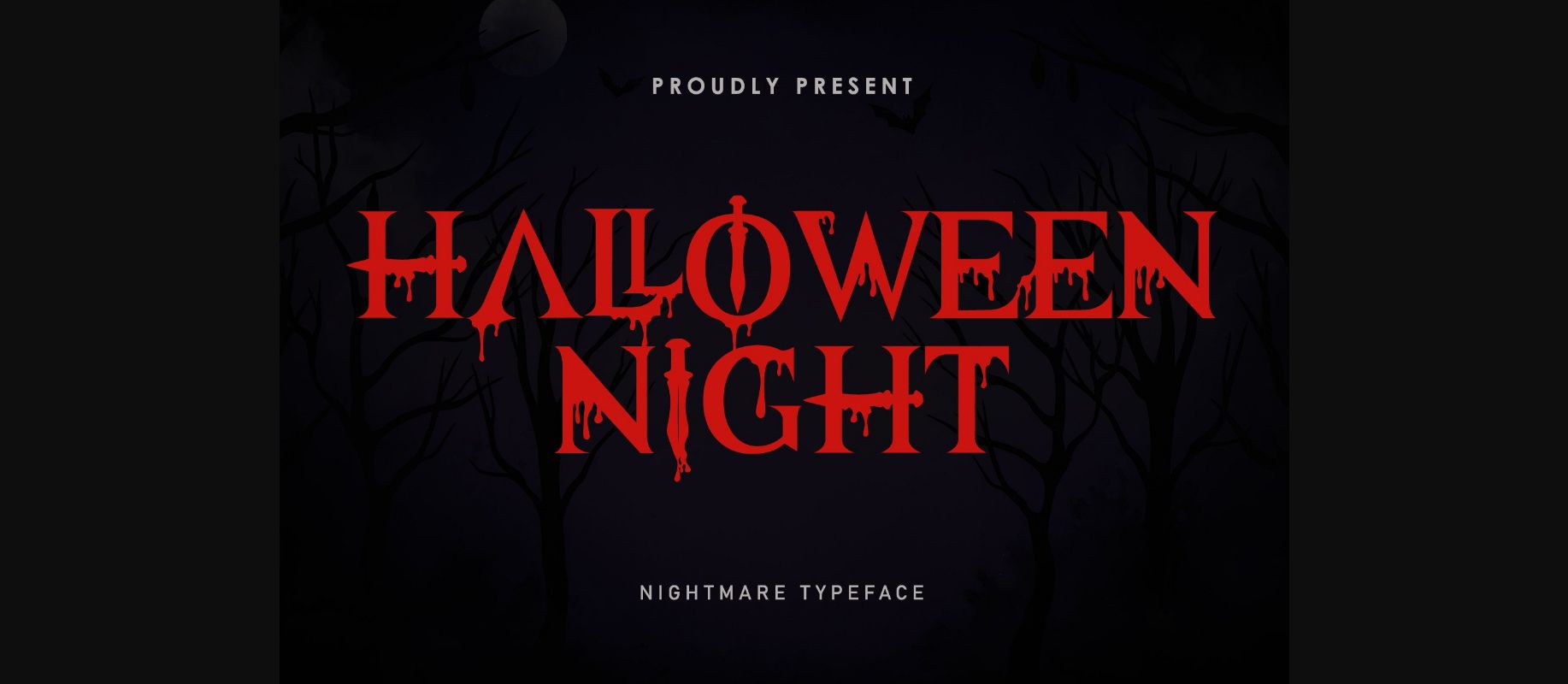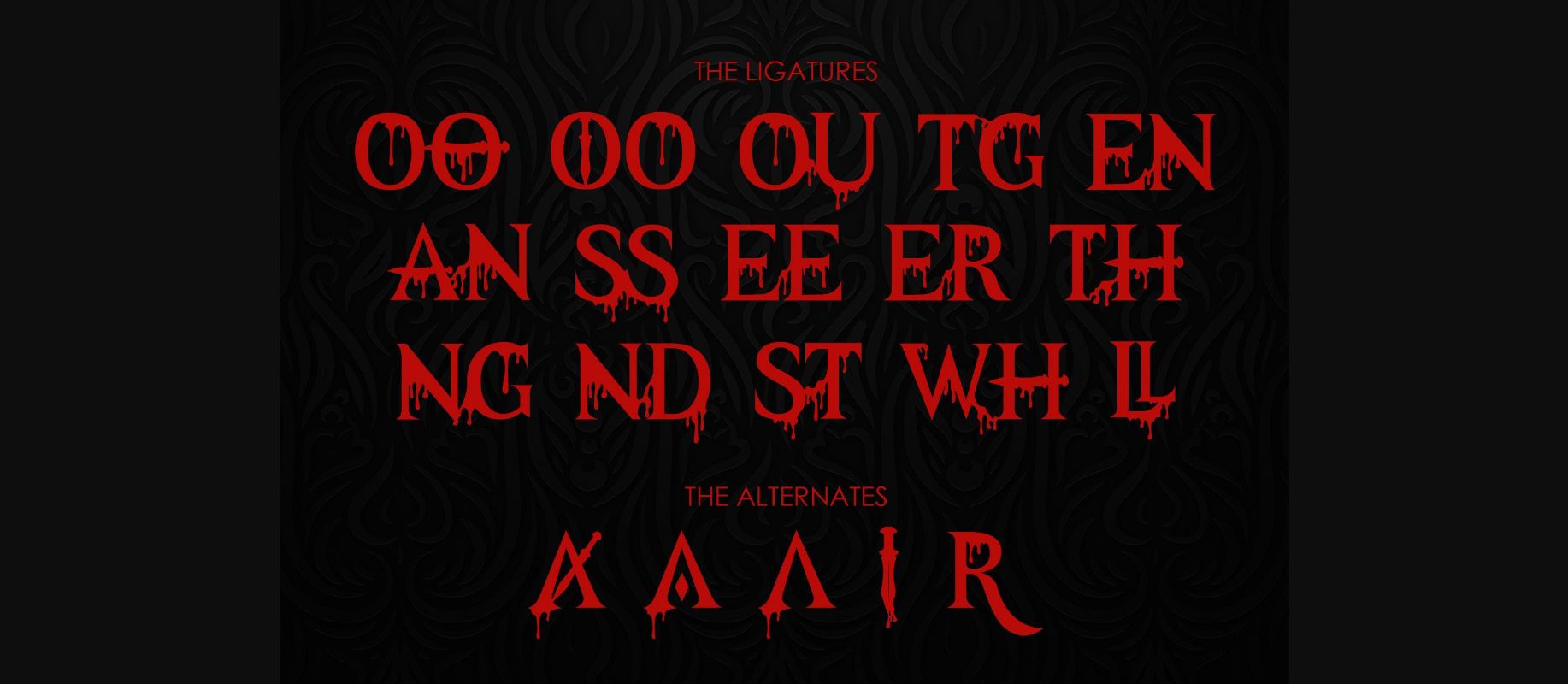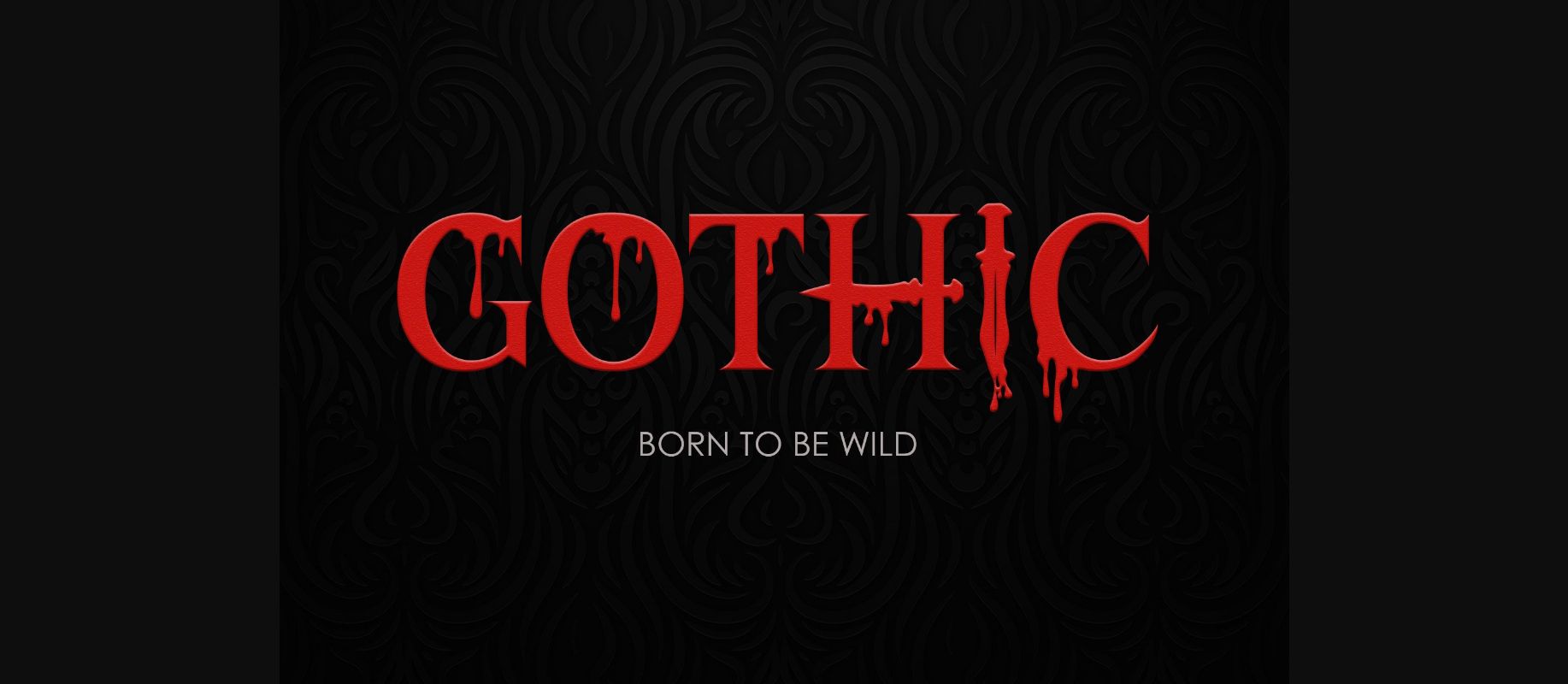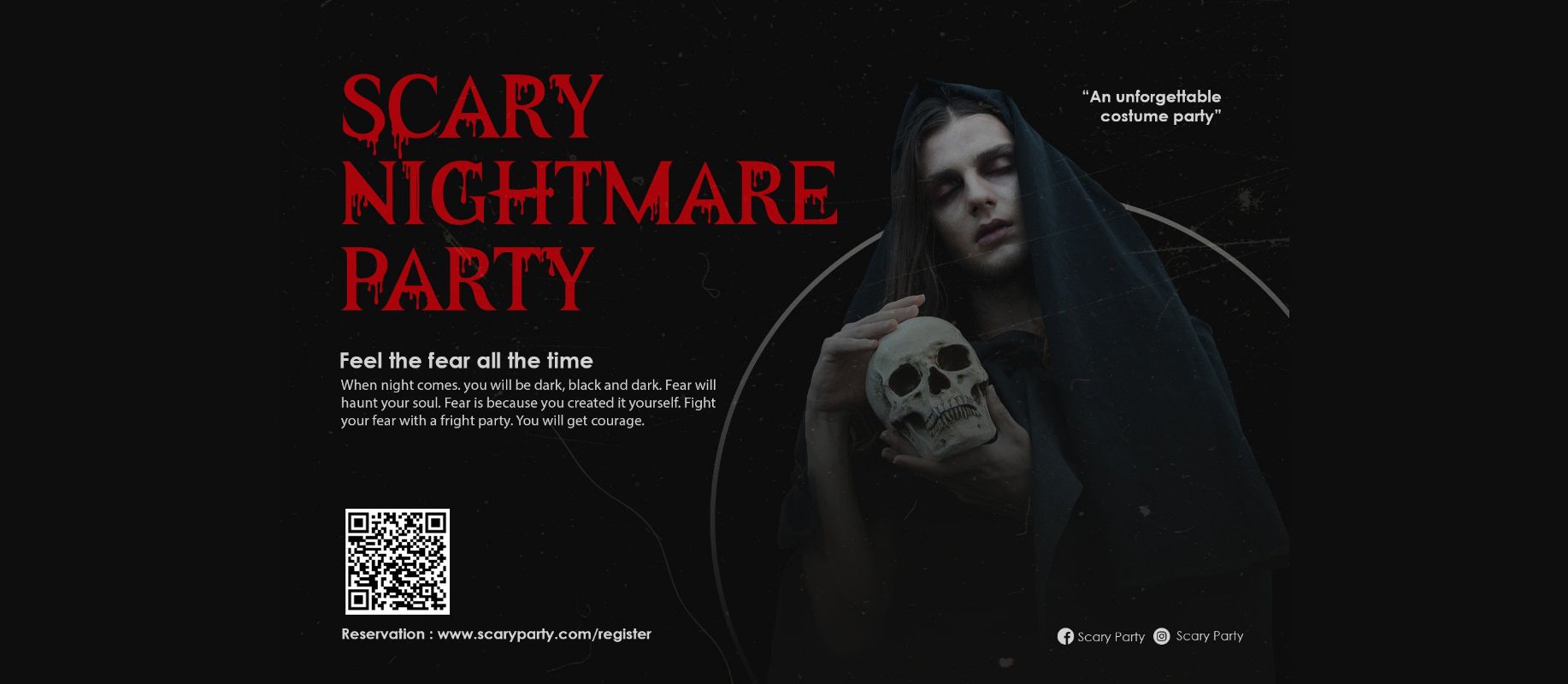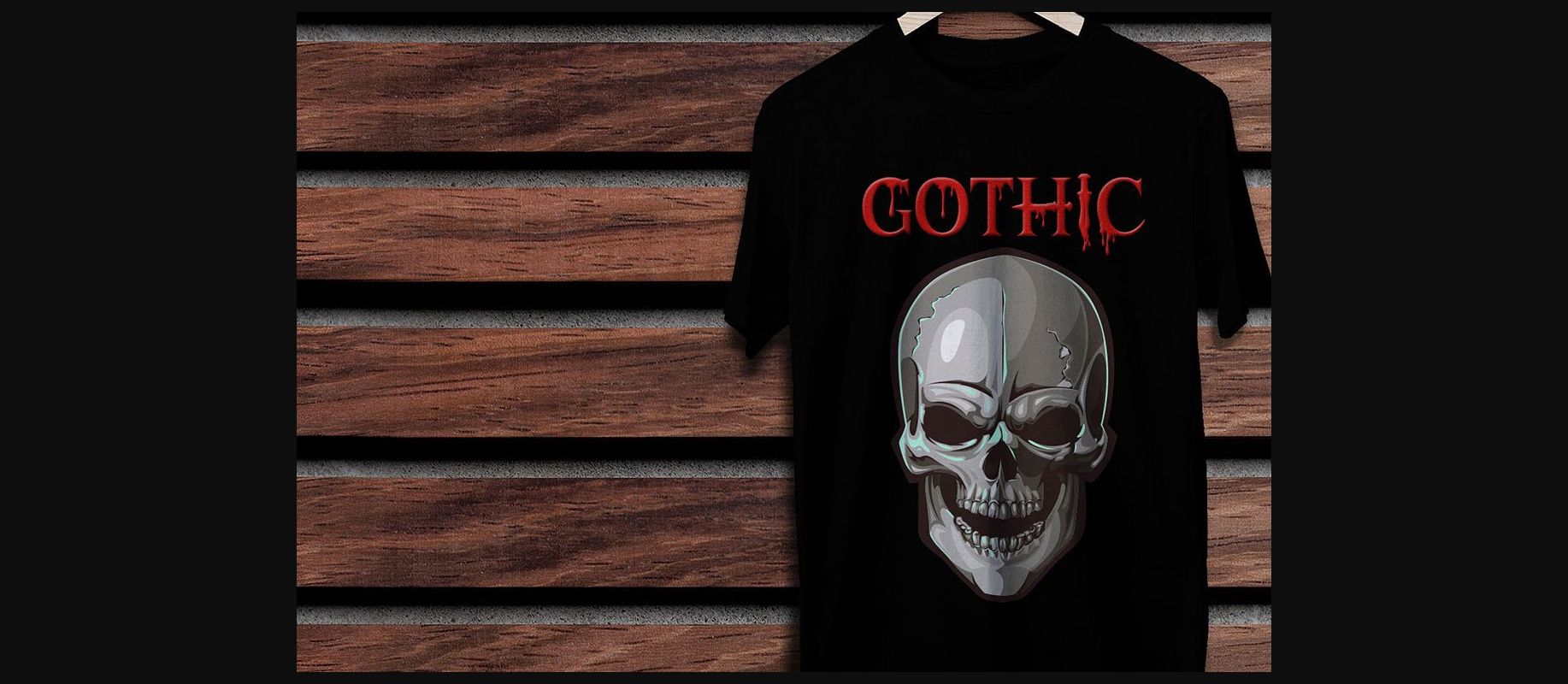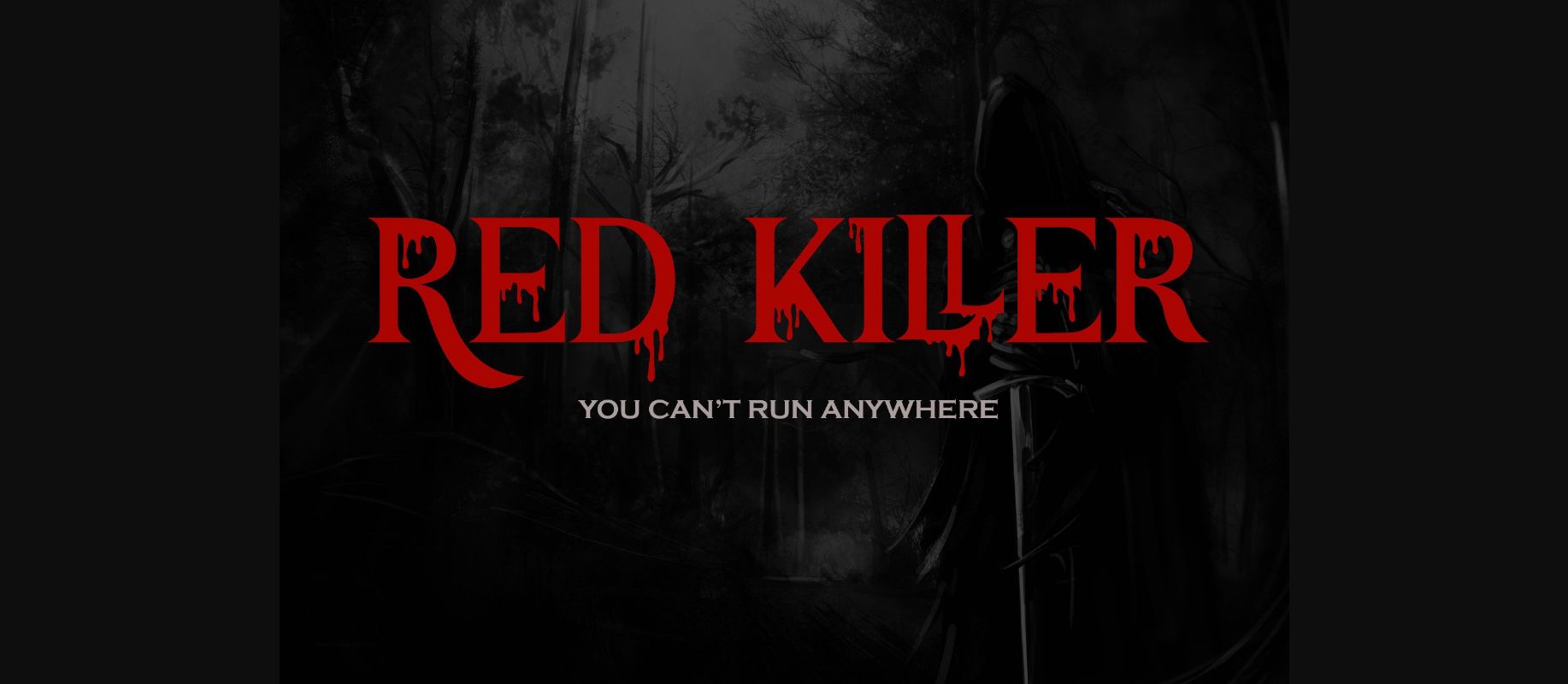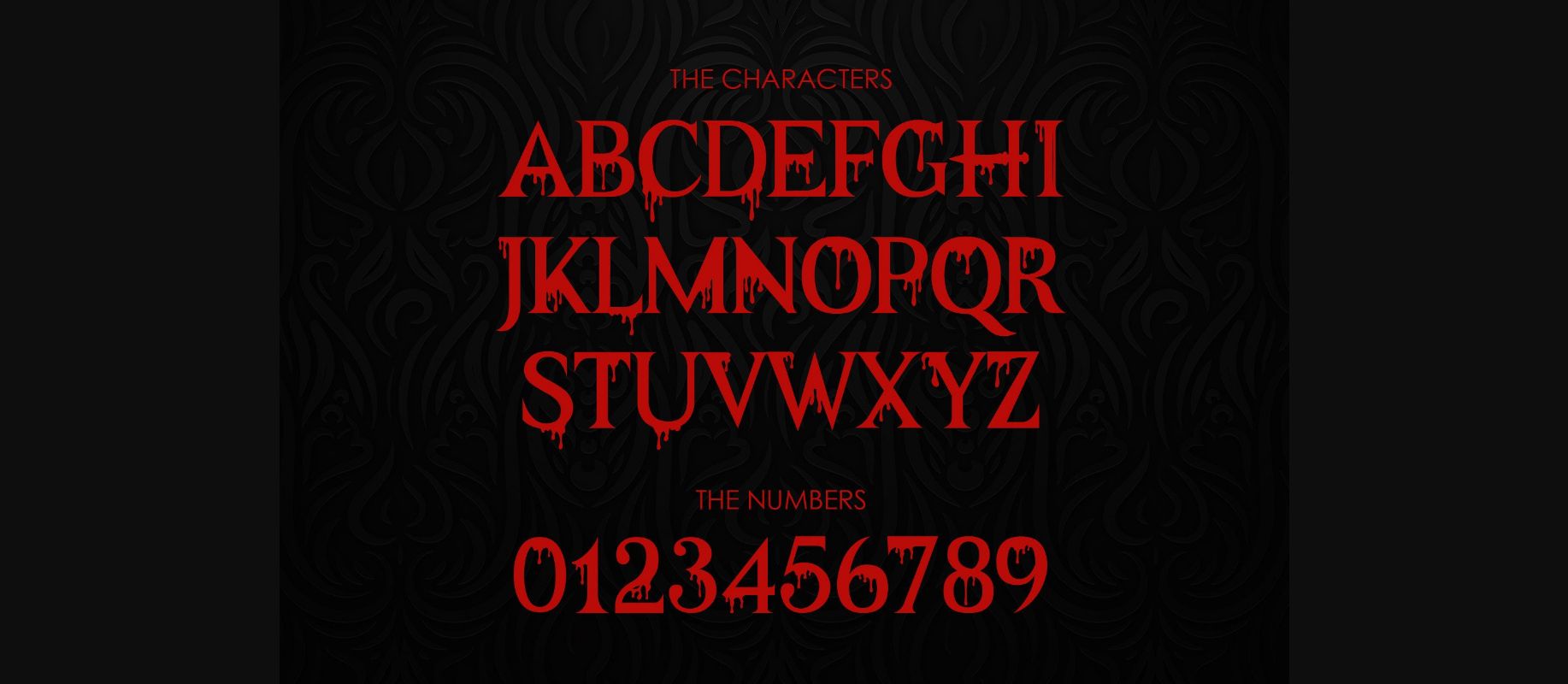
About Halloween Night Font
Halloween Night is a bold and modern decorative font. Expertly designed to make your creation look out of this world, this font has the potential to take your creative ideas further. Perfectly fits your horror designs and is also a unique alternative for display designs. This font is PUA encoded, which means you can access all of the glyphs and swashes with ease!